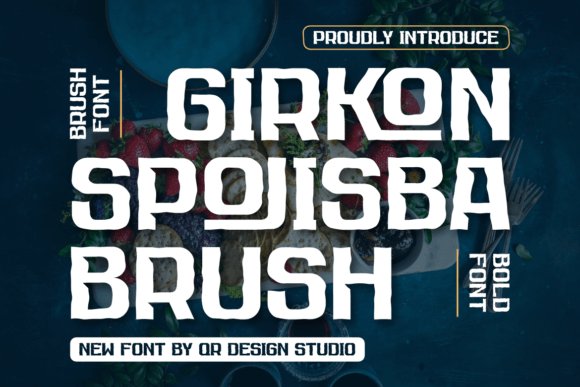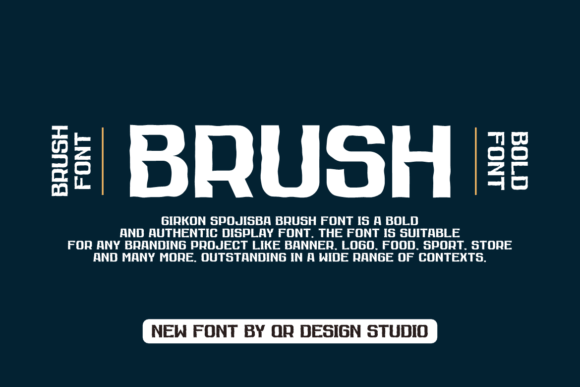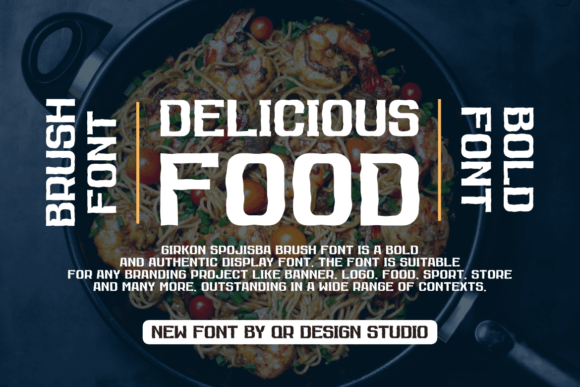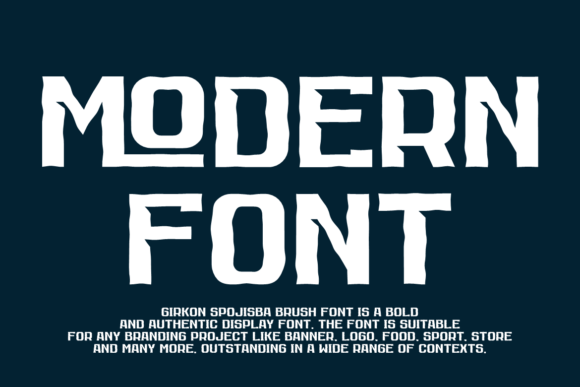
Girkon Spojisba Brush Font
About the Girkon Spojisba Brush Font
Add a touch of class to your work with the Girkon Spojisba Brush Font, a truly exceptional typeface. Girkon Spojisba Brush Font is a bold and authentic display font.
The font is suitable for any branding project like logo, food, sport, and many more.
Outstanding in a wide range of contexts.
Girkon Spojisba Brush Font excels as a display font for headlines, short impactful phrases, and logos. Its bold, expressive nature makes it ideal for branding projects related to food, sports, and entertainment where a strong, authentic feel is desired. Avoid using it for body text or lengthy paragraphs; its weight and brush strokes are not optimized for readability in extended passages.
This font’s energetic personality pairs well with clean sans-serif fonts like Montserrat or Lato for a balanced contrast. For a more sophisticated feel, consider pairing it with a classic serif like Garamond or a geometric sans-serif like Futura. Using it with a delicate script font would be less effective due to competing visual weights.
Girkon Spojisba’s core personality is bold and expressive, conveying a sense of authenticity and handcrafted quality. It’s best suited for brands that value a strong visual identity and wish to project energy and confidence.
Girkon Spojisba Brush Font Usage Examples
Girkon Spojisba Brush Font Example